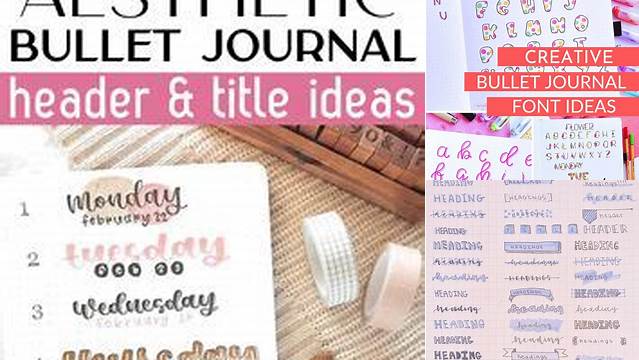
Aesthetic Fonts For Notes: Elevate Your Journaling
Hey guys! So, you're looking to jazz up your notes, huh? We all love a good set of aesthetic fonts for notes, right? It's not just about making things look pretty; it's about creating a visual experience that makes studying, journaling, or even just doodling way more enjoyable. Think about it – a beautifully written title or a creatively styled quote can totally transform a plain page into something that feels personal and inspiring. In this guide, we're diving deep into the world of aesthetic fonts, exploring how to find them, why they matter, and how you can start using them to make your notes stand out. Whether you're a student prepping for exams, a bullet journal enthusiast, or someone who just likes to keep a pretty diary, there's a font out there for you. Let's get these pages looking fabulous!
The Power of Aesthetic Fonts for Note-Taking
Alright, let's talk about why we even bother with aesthetic fonts for notes. It's more than just a fleeting trend, guys. Think of your notes as your personal digital or physical canvas. When you use fonts that are not only readable but also visually appealing, you're essentially giving your ideas a style upgrade. This isn't about fancy calligraphy that takes ages, but more about choosing fonts that convey a certain mood or vibe. For students, this can be a game-changer. Imagine reviewing lecture notes where key terms are highlighted in a cool, distinct font, or where headings are presented in a way that makes the information instantly digestible and less intimidating. It breaks up the monotony of endless blocks of text. For journaling, aesthetic fonts can add personality and emotion. A delicate script might convey a sense of calm and reflection, while a bold, blocky font could express excitement or determination. It's a way to inject your own unique personality into your written word. Plus, let's be real, when your notes look good, you're actually more motivated to engage with them. It makes studying feel less like a chore and more like a creative endeavor. So, when we talk about aesthetic fonts, we're talking about enhancing readability, boosting motivation, and creating a more engaging and personalized note-taking experience. It’s a small tweak that can lead to some seriously big improvements in how you interact with your thoughts and information.
Finding Free Aesthetic Fonts Online
So, where do you guys score these awesome aesthetic fonts for notes without breaking the bank? Luckily, the internet is overflowing with free resources! Websites like Google Fonts are an absolute goldmine. They have a massive library of fonts, many of which are totally free for personal use, and they're super easy to download and install. You can filter by style, weight, and even mood, making it a breeze to find something that fits your aesthetic. Another fantastic place is DaFont. This site has tons of fonts, from elegant scripts to quirky handwritten styles. Just be sure to double-check the licensing – most are free for personal use, but it's always good to be sure. Font Squirrel is another gem, offering high-quality free fonts that are often hand-picked for quality and usability. They also have a handy font identifier if you see a font you love but don't know its name. For those who love the look of handwritten fonts, places like Creative Market (which also has freebies!) and Behance often feature designers sharing free font packs. Remember to always read the license agreement carefully, guys. While most are free for personal use (like for your own notes or journal), using them for commercial projects might require a purchase. But for our purposes – making our personal notes look amazing – these free resources are more than enough to get you started. It's all about exploring and finding those hidden gems that speak to your personal style!
The Best Aesthetic Font Styles for Digital Notes
When you're taking notes on your laptop or tablet, the world of aesthetic fonts for notes really opens up. You're not limited by what you can physically write. For digital notes, think about fonts that are clean, legible, and have a distinct personality. Serif fonts, like Lora or Merriweather, can add a touch of classic elegance and are super easy on the eyes for longer blocks of text. They have those little feet at the ends of the letters, which makes them feel traditional and sophisticated. On the other hand, sans-serif fonts, such as Open Sans, Montserrat, or Lato, offer a more modern and minimalist vibe. These are often preferred for their clean lines and excellent readability on screens. If you want something a bit more unique, consider script fonts for headings or titles. Think of something like Pacifico or Dancing Script – they add a personal, handwritten feel without being too distracting. Just a word of caution, guys: avoid overly complex or condensed script fonts for body text, as they can become a nightmare to read on a screen. Handwritten fonts are also super popular for digital notes. These mimic the look of actual handwriting and can range from neat and tidy to more casual and artistic. Fonts like Caveat or Kalam offer a friendly, personal touch. When choosing, always consider contrast. Use a slightly more decorative font for headings and a clean, readable font for the main content. This hierarchy helps organize your information and makes your digital notes look polished and professional, while still being super aesthetic. Experiment with different weights too – a bold sans-serif for a title and a regular weight for the body text can create great visual interest!
Exploring Whimsical and Playful Aesthetic Fonts
Sometimes, guys, our notes just need a little sparkle. That's where whimsical and playful aesthetic fonts for notes come in! These are the fonts that don't take themselves too seriously, the ones that bring a smile to your face and inject a dose of fun into your pages. Think bubbly, rounded fonts, slightly quirky handwritten styles, or even fonts with little decorative elements. For a super cute and playful look, check out fonts like Chewy or Fredoka One. They have a rounded, almost cartoonish feel that's perfect for brainstorming sessions, creative projects, or just making your to-do lists feel a little less mundane. If you're into a more artsy, hand-drawn vibe, fonts like Amatic SC (which is tall and narrow with a slightly uneven baseline) or Architects Daughter can add a charming, imperfect touch. These feel super personal, like they were sketched right onto the page. For a touch of whimsy, look for fonts that have slightly exaggerated curves or unique letterforms. Sometimes, a simple change in a letter's shape can make all the difference. Playful fonts are fantastic for adding personality to headers, titles, or even just individual words you want to emphasize. They can make a study guide feel more engaging or a diary entry feel more vibrant. Just remember the golden rule, especially with these more decorative fonts: use them strategically. A whole page of a super playful font might be overwhelming, but a well-placed title or a highlighted quote in a fun font? Chef's kiss. It’s all about balance and making sure your notes are still easy to read while radiating that fun, aesthetic vibe you're going for. So go ahead, embrace the playful side and let your personality shine through your notes!
Minimalist and Clean Aesthetic Fonts for a Sleek Look
Now, for those of you who love a super clean, uncluttered look, minimalist aesthetic fonts for notes are your best friends. These fonts are all about simplicity, elegance, and supreme readability. They strip away unnecessary embellishments, focusing on the pure form of the letters. Sans-serif fonts really dominate this category. Think of classics like Helvetica Neue, Arial, or more modern interpretations like Raleway or Poppins. These fonts are incredibly versatile. They look sharp on digital screens and translate beautifully to print. Their clean lines convey a sense of order, professionalism, and calm – perfect for organizing complex information or for creating a serene journaling space. When aiming for a minimalist aesthetic, it's often about more than just the font itself; it's about how you use it. White space becomes your best friend! Pair a clean sans-serif font with plenty of breathing room on the page, and you've got an instantly sophisticated look. You can also achieve a minimalist vibe by using different font weights within the same family. For example, using a light weight for subheadings and a regular weight for body text creates subtle hierarchy without adding visual clutter. Another trick is to stick to a limited color palette – maybe just black and white, or a single accent color. This reinforces the clean, minimalist feel. Even for handwritten notes, you can achieve a minimalist aesthetic by choosing a neat, simple script or block lettering style and focusing on clean, consistent letterforms. The goal is clarity and understated style. It’s about making your notes look effortlessly chic and easy to digest, proving that sometimes, less really is more when it comes to beautiful typography.
Creative Ways to Use Aesthetic Fonts in Your Notebooks
Alright, so you've found some killer aesthetic fonts for notes, but how do you actually use them to make your notebooks pop? It’s not just about typing them out on your computer; it’s about getting creative with how you integrate them. For your physical notebooks, think about hand-lettering! You don't need to be a calligraphy pro. Start by practicing simple styles like block letters or basic script. You can trace fonts you like initially to get a feel for the shapes. Try using different writing tools – a fine-tip pen for neatness, a brush pen for bolder strokes, or even a gel pen in a fun color. Using a ruler for guidelines can help keep things straight and tidy, contributing to that clean aesthetic. Mix and match fonts! Use a bold, decorative font for your main titles and a simpler, more readable font for the body text. This creates visual interest and hierarchy. Don't be afraid to experiment with layouts. Maybe your weekly spread title is written in a large, fancy font, while your daily tasks are in a smaller, cleaner font. Highlight key information – quotes, definitions, important dates – using a different aesthetic font. This draws the eye and makes your notes easier to scan and remember. For digital notes, the possibilities are even broader. Use font pairings effectively. Combine a serif and a sans-serif, or a script for headings and a clean sans-serif for text. Utilize different font sizes and weights to create emphasis. Use bullet points styled with unique fonts or icons. You can even create custom templates in apps like Goodnotes or Notability using your favorite aesthetic fonts. The key is to see your notebook not just as a place for information, but as a space for creative expression. Let those fonts do the talking!
Integrating Aesthetic Fonts into Bullet Journals
Bullet journaling is practically made for aesthetic fonts for notes, guys! It's a space where creativity and organization collide, and typography plays a huge role in setting the mood. When you’re setting up your spreads, think about how fonts can guide the reader (even if that reader is just you!). For your index and future log, a clean, highly legible sans-serif font is usually best – you need to find things quickly, after all. But then, when you get to your monthly or weekly spreads, that’s where the fun begins! Use a more decorative or script-style font for the month or week's title. Something like Brush Script MT or a similar handwritten style can add a personal, artistic touch. For your daily logs or task lists, you might want to stick to a cleaner font for readability, but you can still add aesthetic flair by using different weights or by styling your headers with a different font. Consider using different fonts for different types of entries. Maybe your